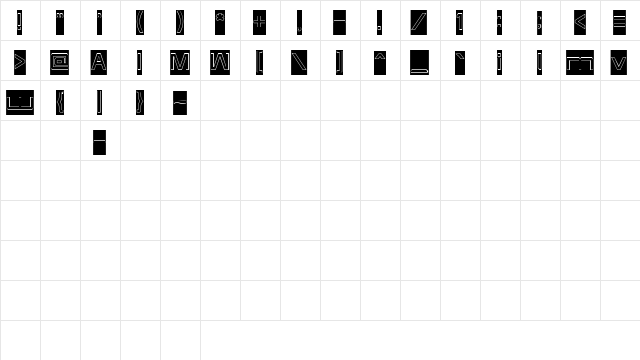
What The FUN-Hollow-Inverse Normal
Design Context for What The FUN-Hollow-Inverse Typeface
What The FUN-Hollow-Inverse has an approachable, lighthearted character — its loose, expressive forms are well-suited to children's content, casual branding, and fun-first design.
Font Pairing: Pairs well with a rounded or humanist sans for body copy, maintaining the friendly tone without relying on What The FUN-Hollow-Inverse to carry extended reading.
Pro Tip: Avoid using What The FUN-Hollow-Inverse for long passages of text — it works best for headlines, labels, and short calls to action.